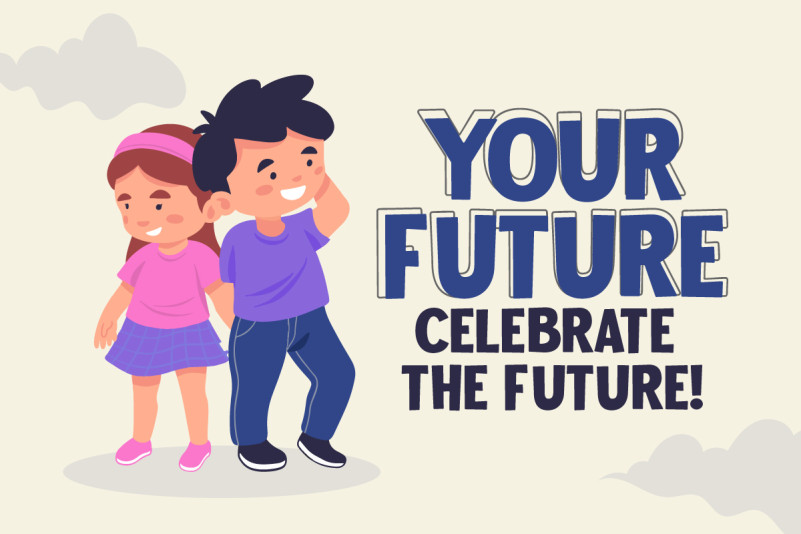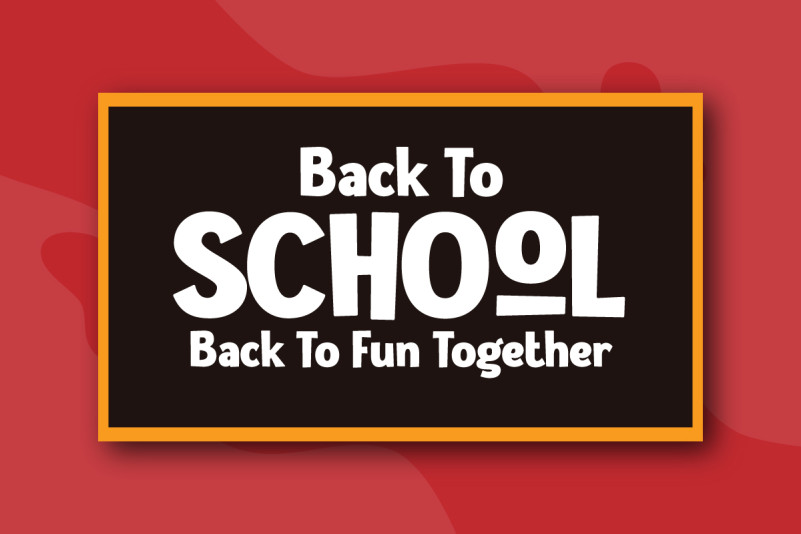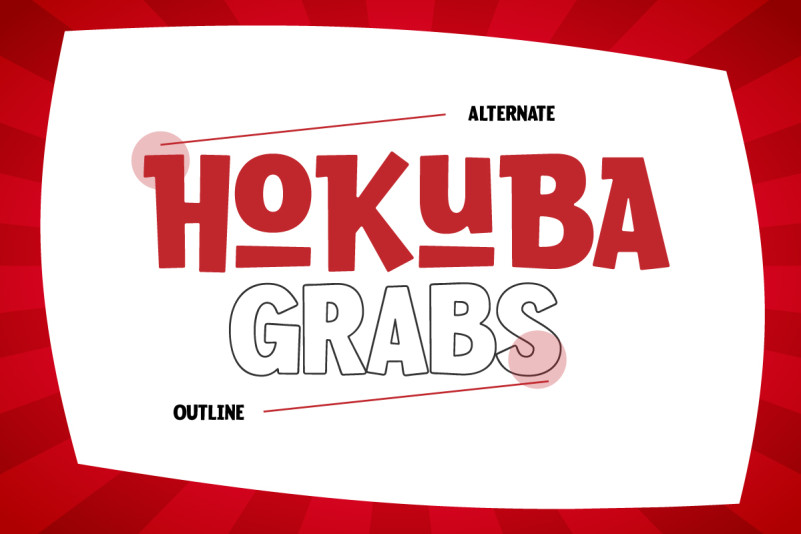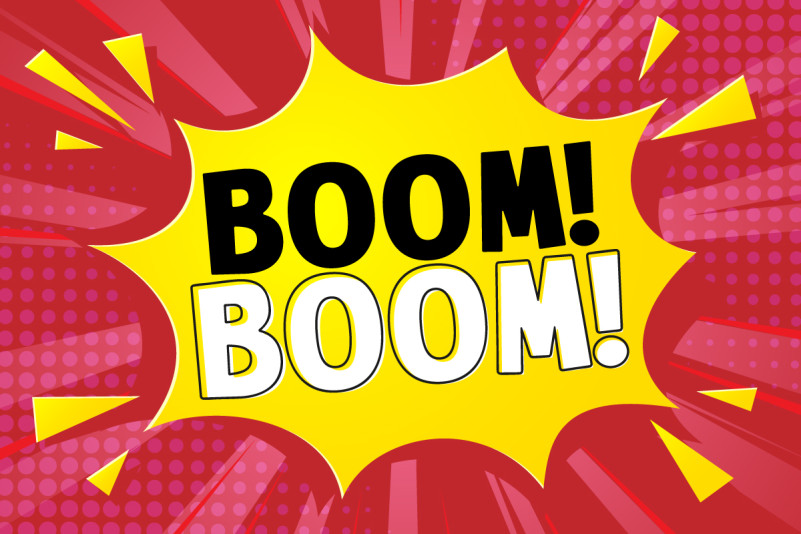
Hokuba Grabs Font
Hokuba Grabs Display Font is a New display font that creates with a very good concept and adjusted well to keep the legibility. Hokuba Grabs Display Font Comes with upper and lowercase Standard Characters, Punctuation, Numerals, And other Glyphs variation of the OpenType features/ Ligatures.
Hokuba Grabs Display Font is suitable for logos, posters, school flyers, university banners, modern advertising design, product labels, cartoons, comics, kid books, custom mugs, pillows, t-shirts, youtube thumbnails/covers, subtitles, poster quotes, editorial design, book/cover Title, website/blog, social media post, packaging designs, and other designs.
Hokuba Grabs – New Fun Display Font